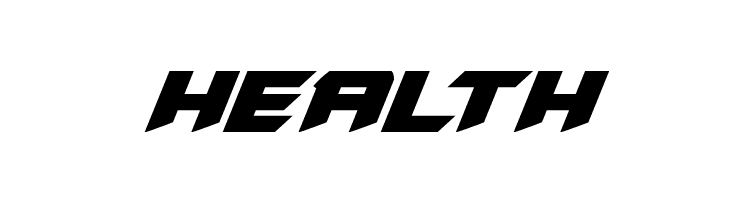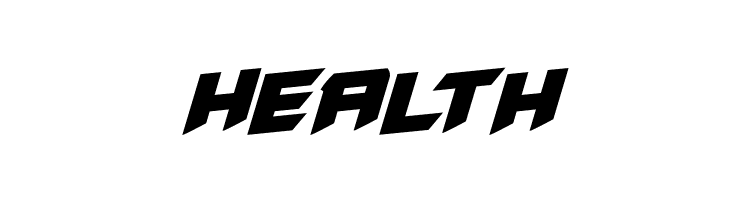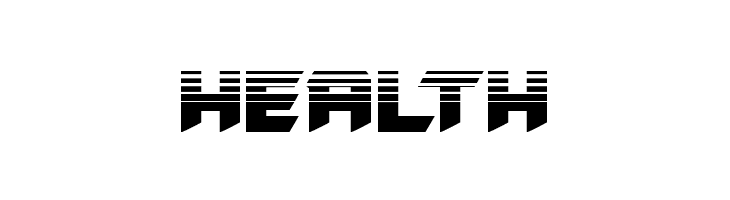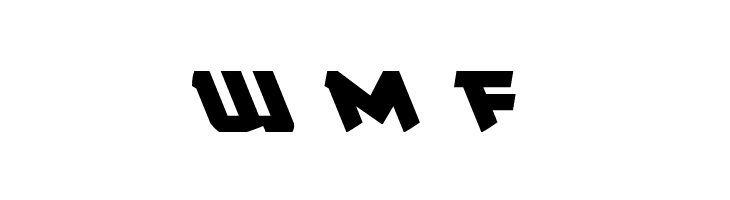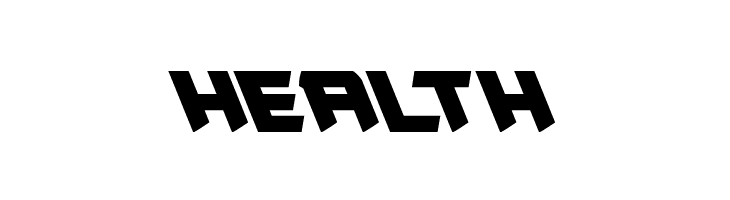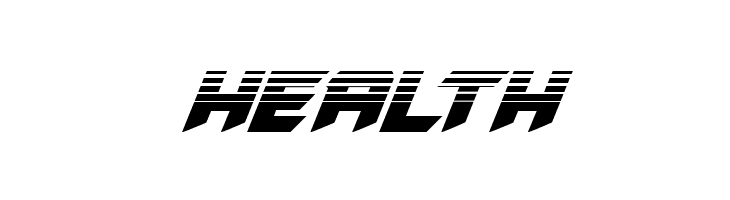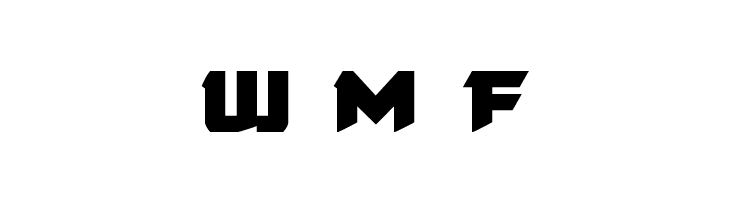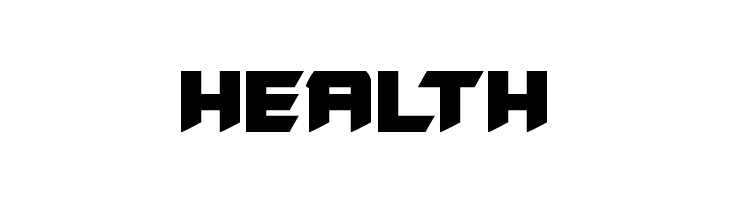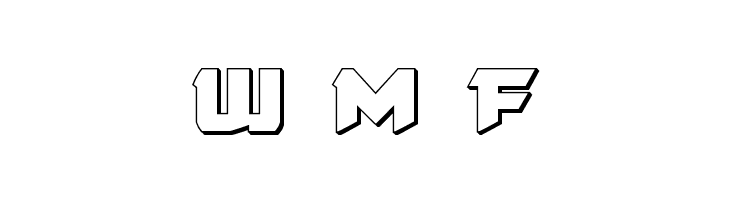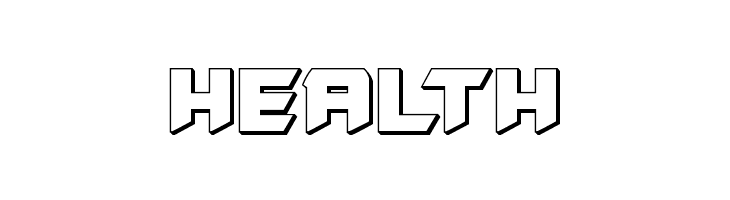
Skirmisher Font
A bold, angular font with a futuristic and aggressive style.
Skirmisher Rotalic Font
A bold, angular font with a dynamic, forward-leaning slant.
Skirmisher Expanded Font
A bold, angular font with a futuristic and dynamic design.
Skirmisher Expanded Italic Font
A bold, angular, and italicized font with a futuristic and expanded style.
Skirmisher Condensed Font
A bold, angular, and condensed font with a futuristic, military-inspired design.
Skirmisher Italic Font
A bold, angular, and italicized font with a futuristic and edgy design.
Skirmisher Condensed Italic Font
Bold, angular, and italic with a condensed form and high contrast.
Skirmisher Semi-Italic Font
A bold, angular, semi-italic font with a futuristic and aggressive style.
Skirmisher Halftone Italic Font
A bold, italicized font with a halftone effect and futuristic style.
Skirmisher Laser Font
A bold, futuristic font with sharp angles and geometric shapes.
Skirmisher Laser Italic Font
A bold, futuristic font with sharp, angular edges and an italicized slant.
Skirmisher Gradient Italic Font
A dynamic, futuristic italic font with gradient stripes and sharp angles.
Skirmisher Leftalic Font
A bold, angular font with sharp, geometric edges and a dynamic slant.
Skirmisher 3D Font